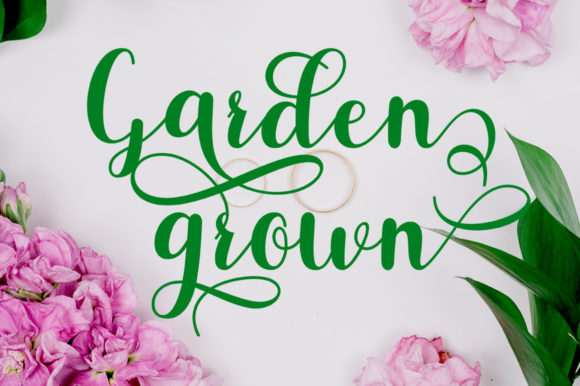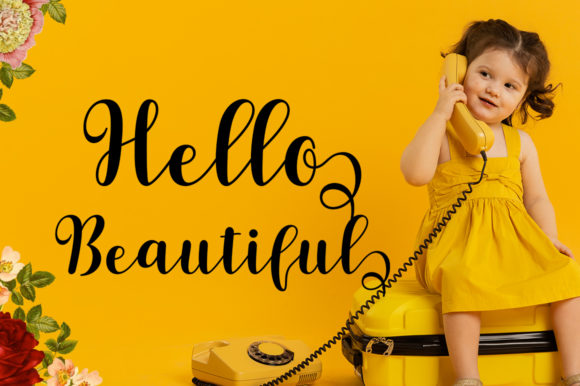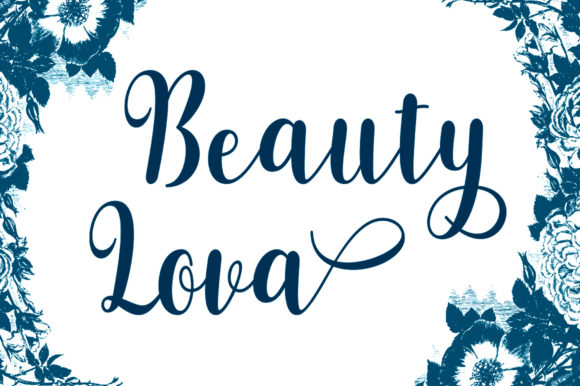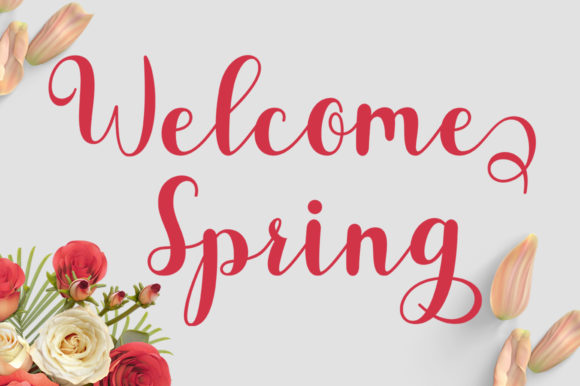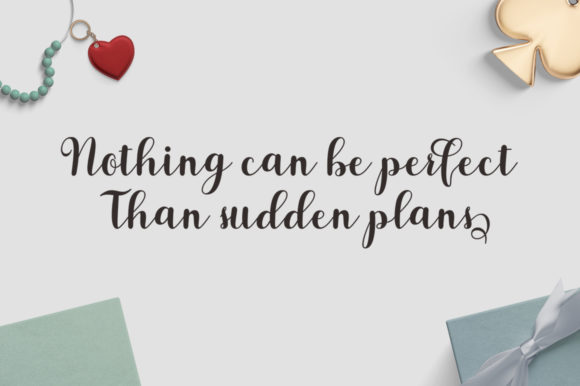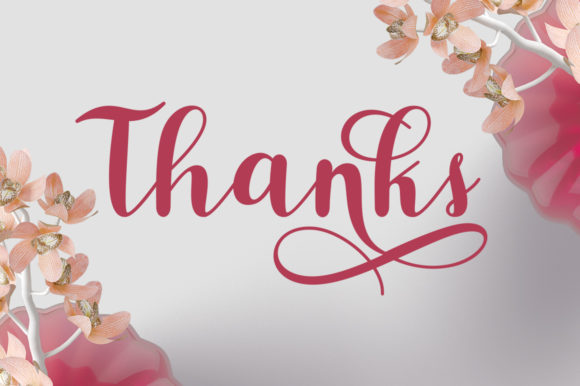
Introducing Betania Font: Elevate Your Designs with Elegance and Sophistication
Are you on the hunt for a font that exudes elegance, sophistication, and a touch of modern flair? Look no further than Betania Font, a stunning handwritten typeface that is sure to take your designs to the next level. With its flowing lines, beautiful glyphs, and gorgeous swashes, Betania is the perfect choice for designers and crafters looking to add a touch of class to their projects.
What Makes Betania Font So Special?
Betania Font is a beautifully crafted, PUA-encoded font that offers a wide range of glyphs and swashes, giving you the flexibility to create unique and eye-catching designs. Its varying baseline and smooth lines give it a natural, handwritten feel that is both elegant and approachable. The font features stunning alternates, gorgeous glyphs, and a range of swashes that allow you to customize your text to suit your style.
Key Features of Betania Font
- PUA Encoded: Betania Font is PUA encoded, making it easy to access all of the glyphs and swashes, even if you’re not a professional designer.
- Varying Baseline: The font’s varying baseline gives it a natural, handwritten feel that adds character and personality to your designs.
- Smooth Lines: Betania’s smooth lines and flowing curves make it a joy to use, and give your designs a sense of elegance and sophistication.
- Gorgeous Glyphs: The font features a wide range of beautiful glyphs, including stunning alternates and swashes, giving you the flexibility to create unique and eye-catching designs.
- Classy Calligraphic Influences: Betania maintains its classy calligraphic influences while feeling contemporary and fresh, making it perfect for a wide range of design projects.
Why Choose Betania Font?
Betania Font is the perfect choice for designers and crafters looking to add a touch of elegance and sophistication to their projects. Whether you’re working on a branding project, a wedding invitation, or a craft project, Betania is sure to impress. Its unique combination of classic calligraphic influences and modern flair makes it versatile and easy to use, and its PUA encoding makes it accessible to designers of all levels.
Betania Font is perfect for a wide range of design projects, including:
- Branding: Use Betania to create stunning logos, business cards, and letterheads that exude elegance and sophistication.
- Wedding Invitations: Add a touch of class to your wedding invitations, save-the-dates, and thank-you cards with Betania’s beautiful script.
- Craft Projects: Use Betania to create stunning craft projects, including handmade cards, gift tags, and scrapbooking pages.
- Digital Designs: Betania is perfect for digital designs, including social media graphics, blog headers, and website designs.
| Font Name | Betania Font |
In conclusion, Betania Font is a stunning handwritten typeface that is sure to elevate your designs to the next level. With its elegant lines, beautiful glyphs, and gorgeous swashes, Betania is the perfect choice for designers and crafters looking to add a touch of class to their projects. Its PUA encoding makes it easy to use, and its versatility makes it perfect for a wide range of design projects. So why wait? Fall in love with Betania and bring your projects to the highest levels!